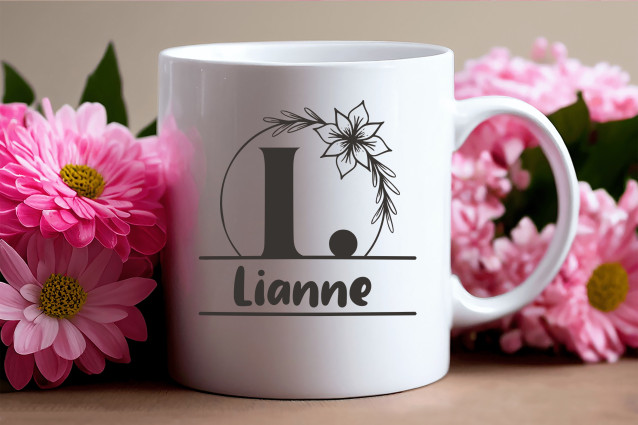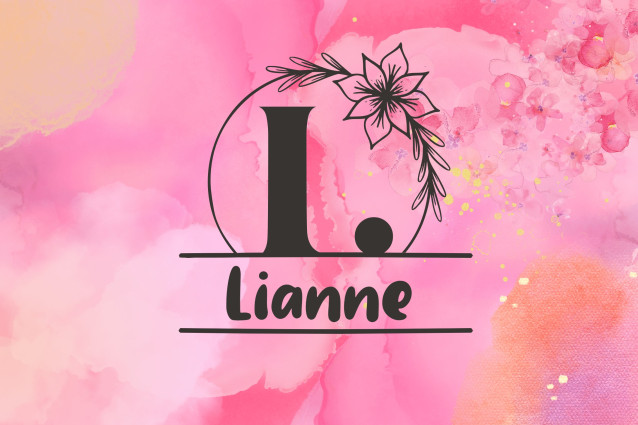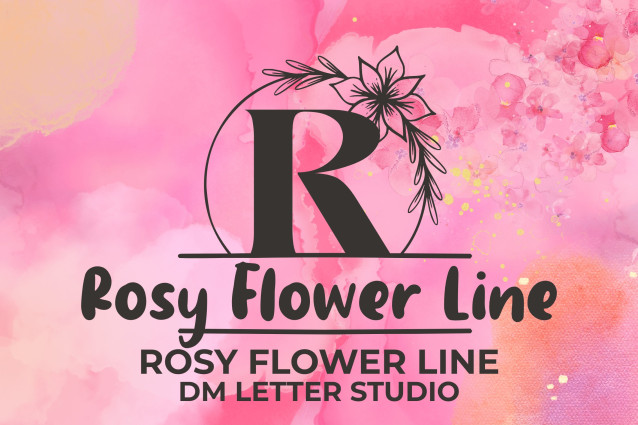
Rosy Flower Line Monogram Font
Rosy Flower Line Monogram is a graceful and decorative monogram font that captures the timeless beauty of roses in refined line art. With its light, intricate floral detailing and clean letterforms, this font is ideal for romantic wedding designs, boutique logos, nature-themed packaging, and sophisticated branding projects that call for a soft yet polished floral touch.